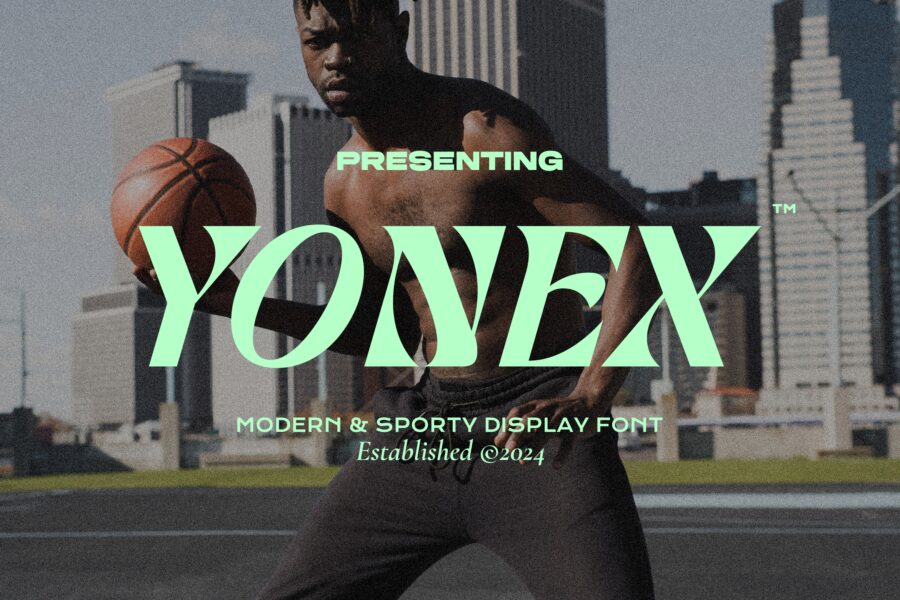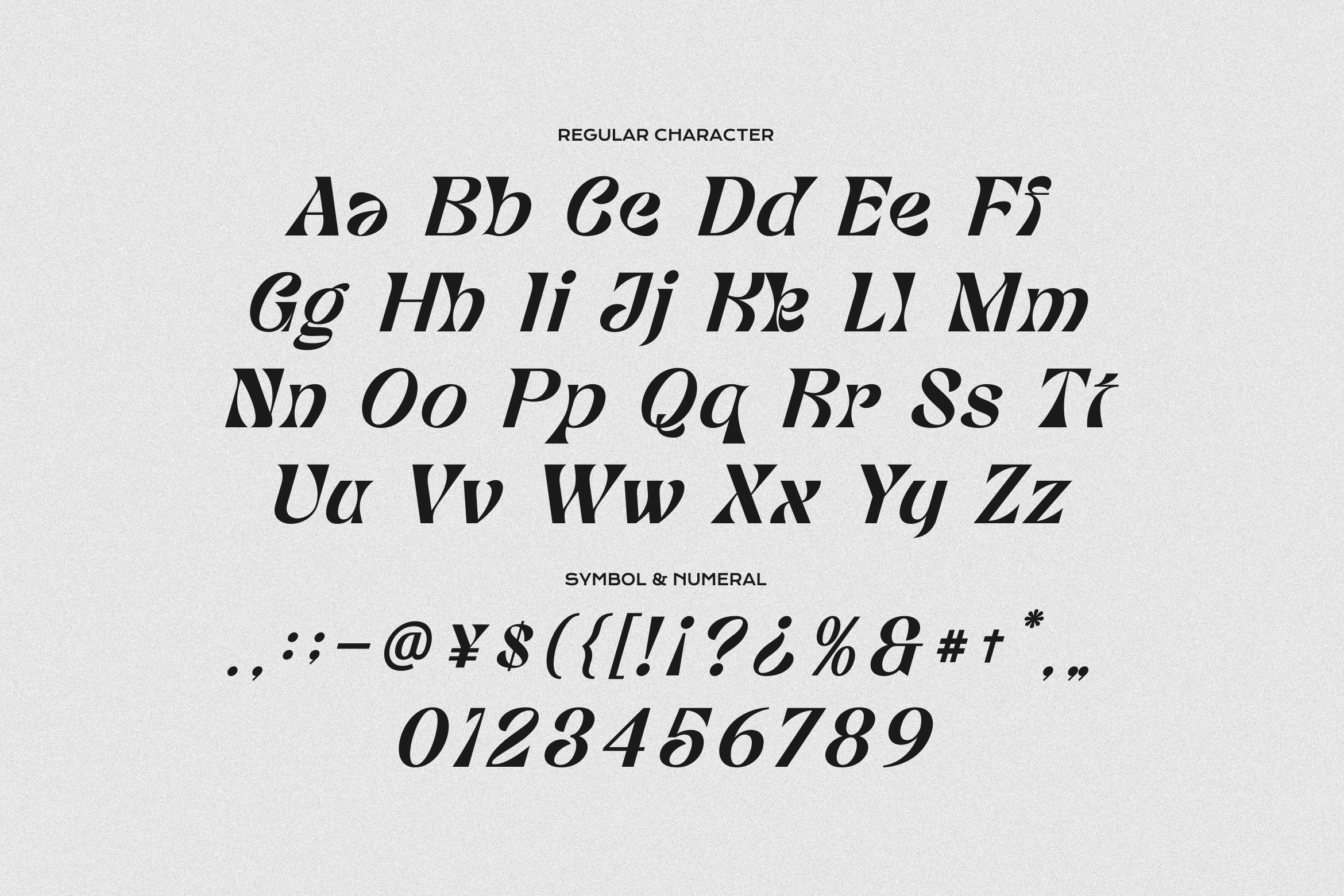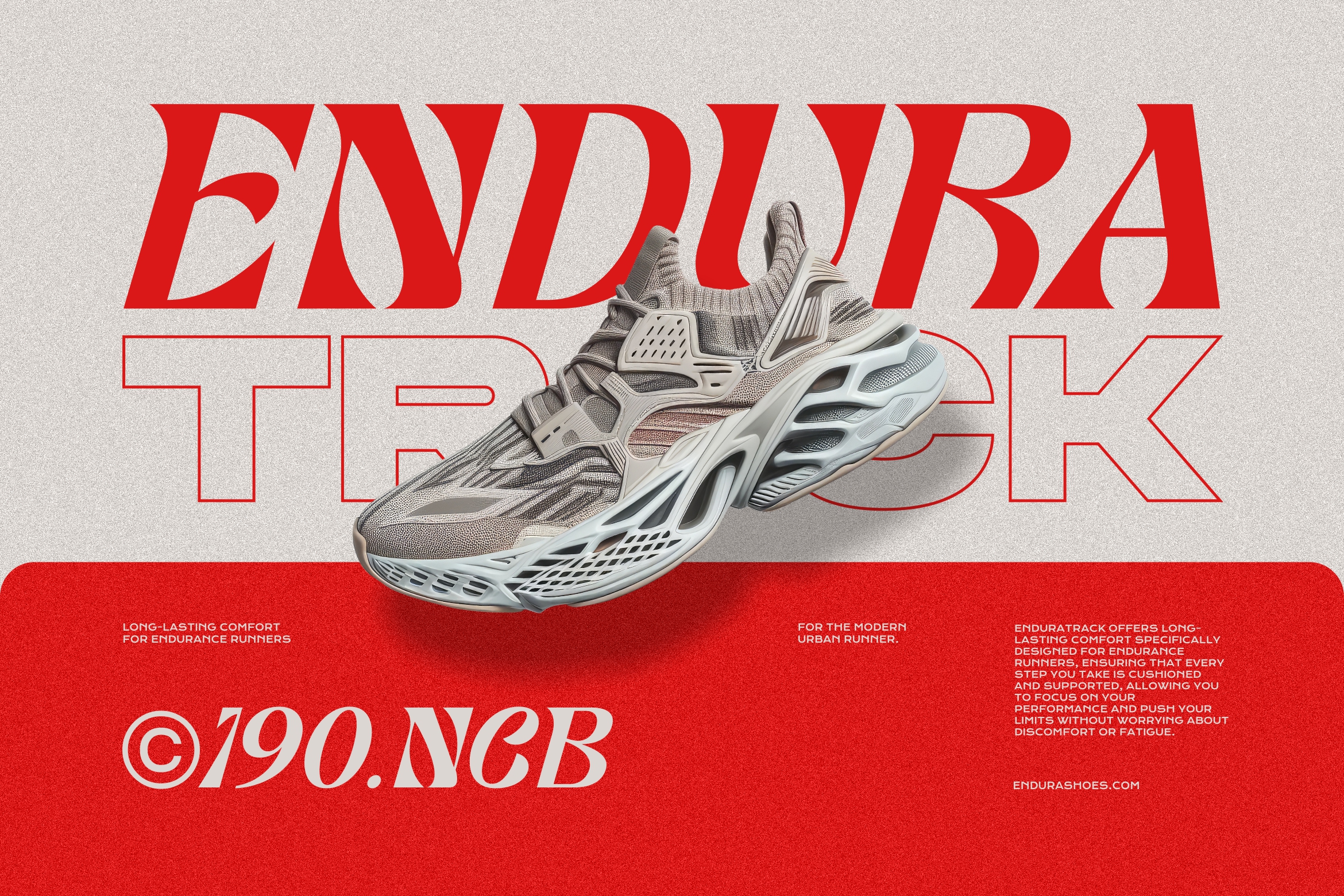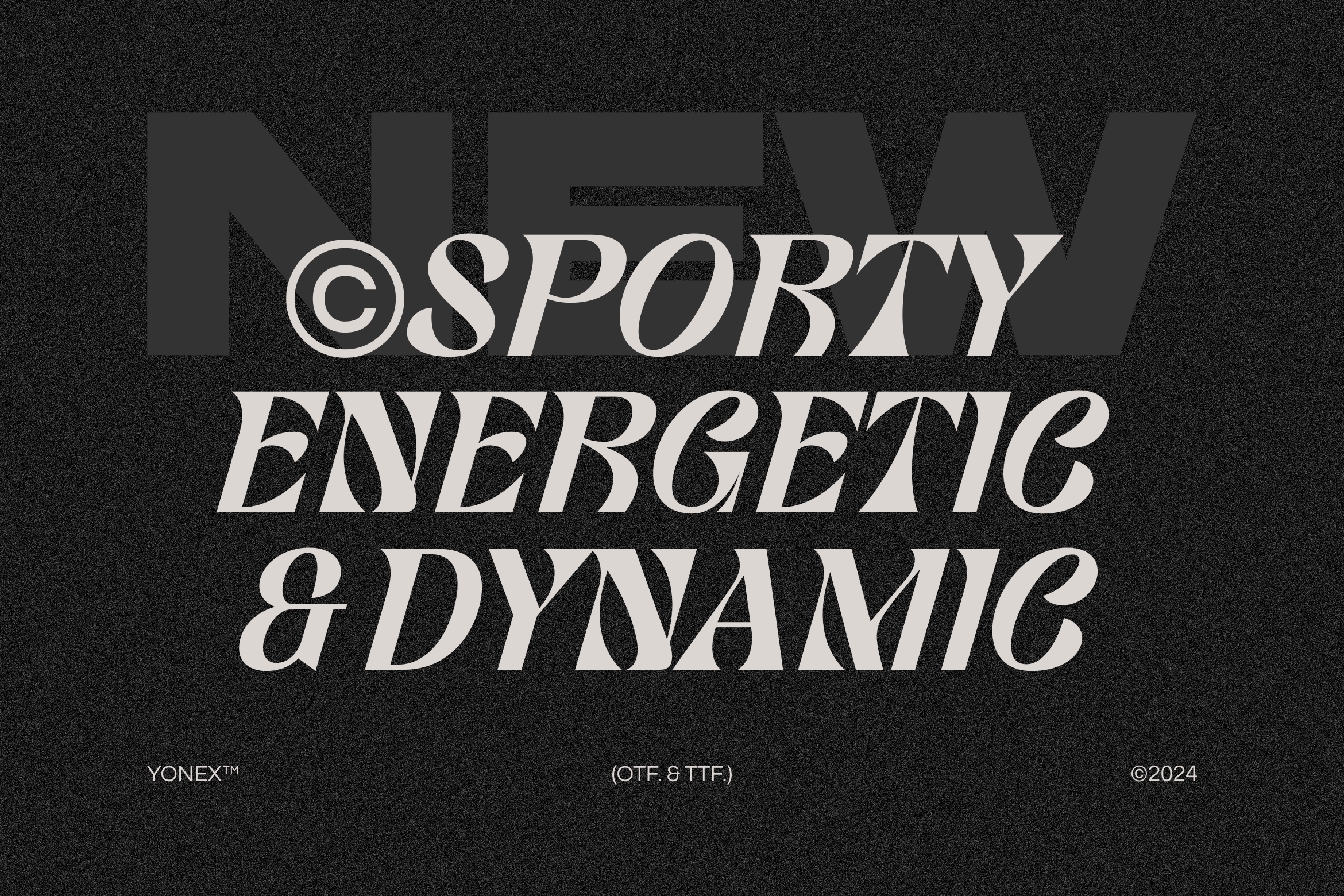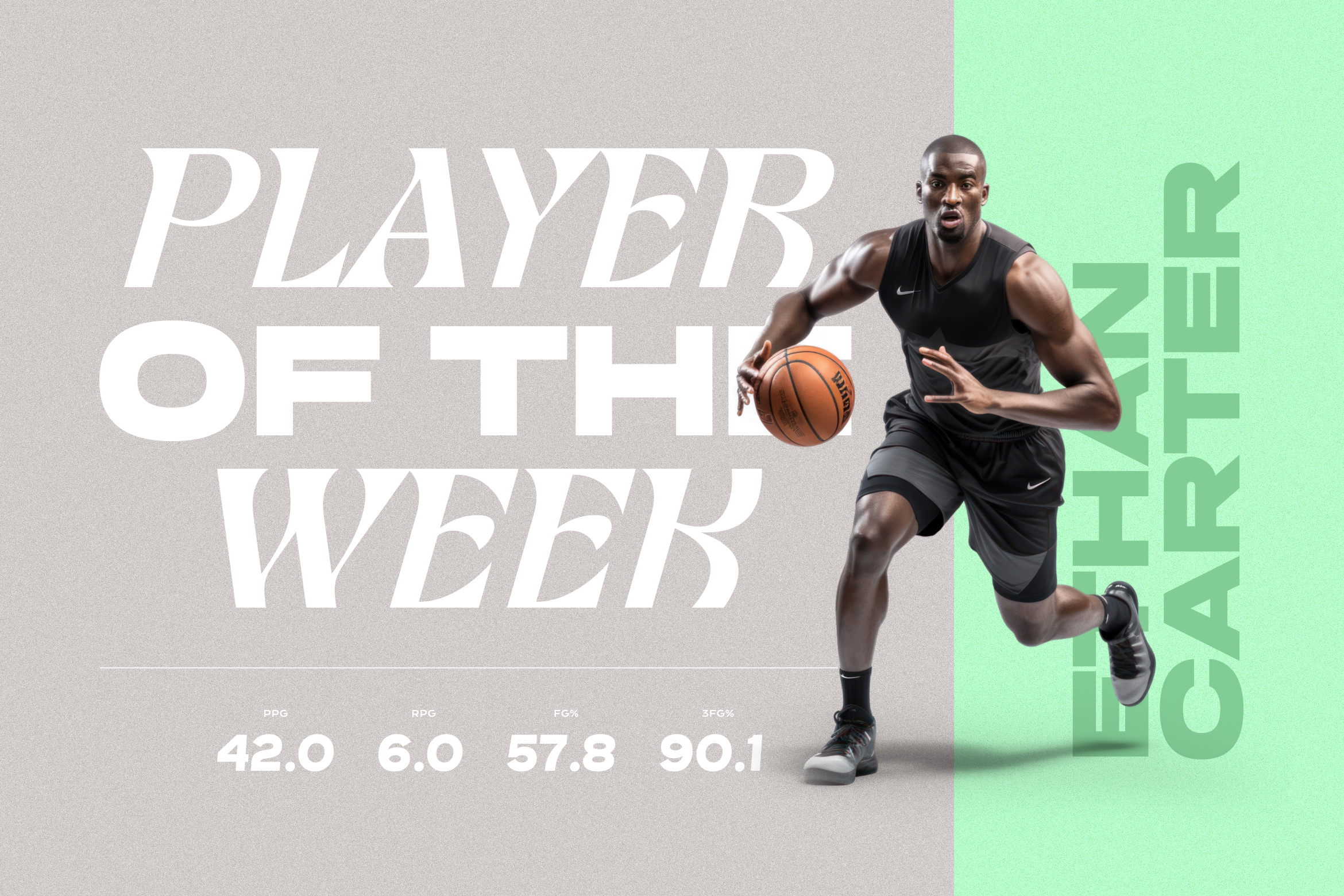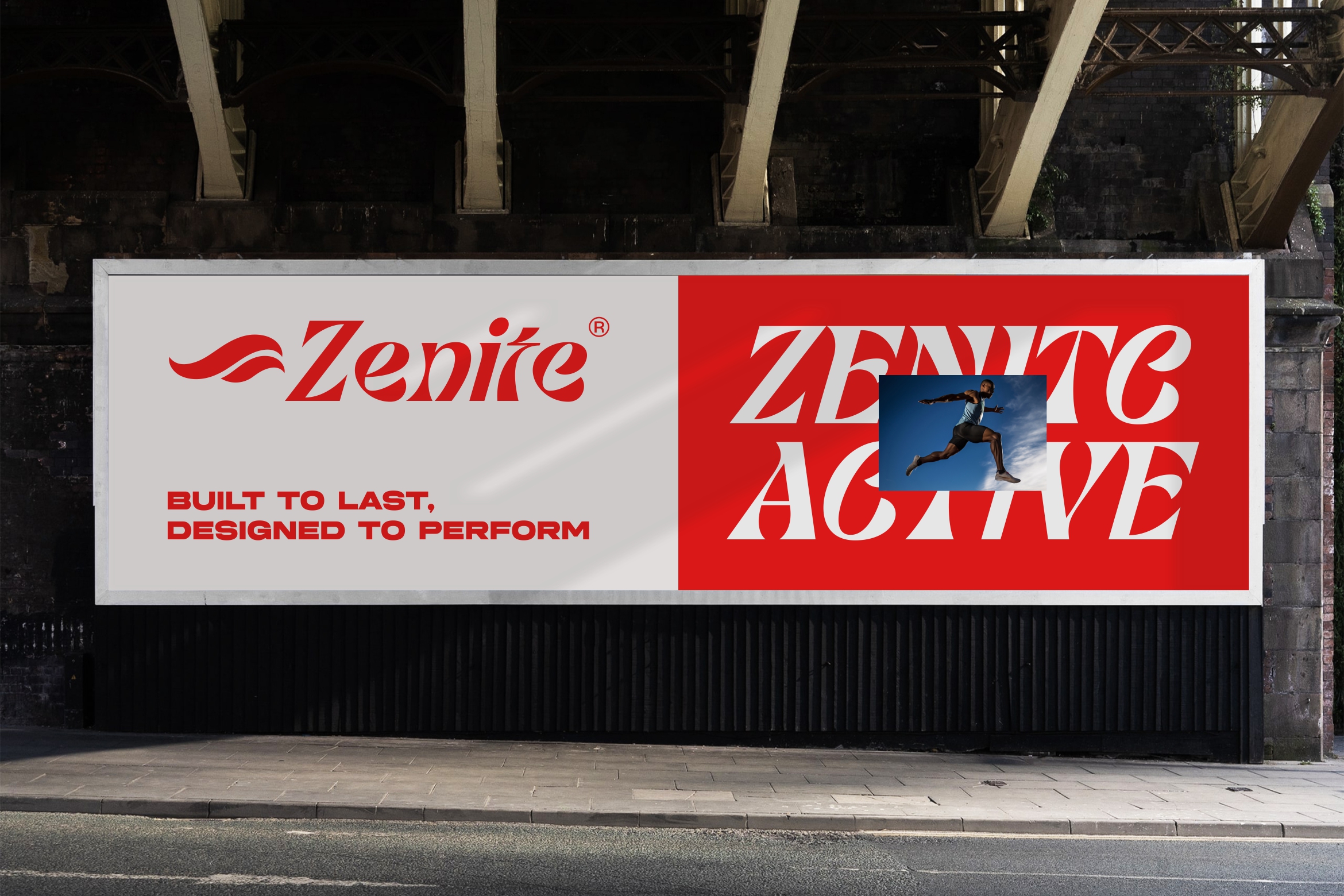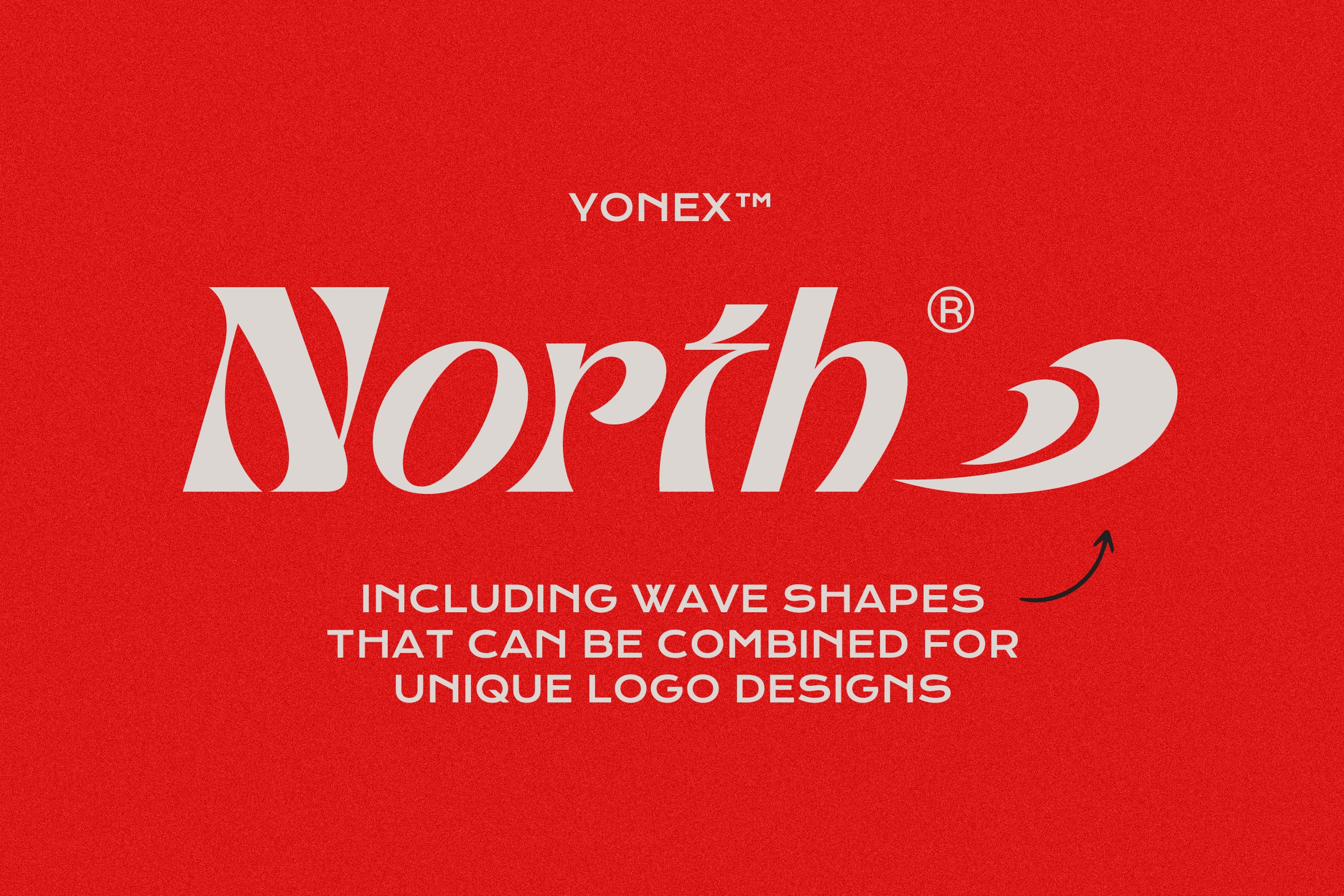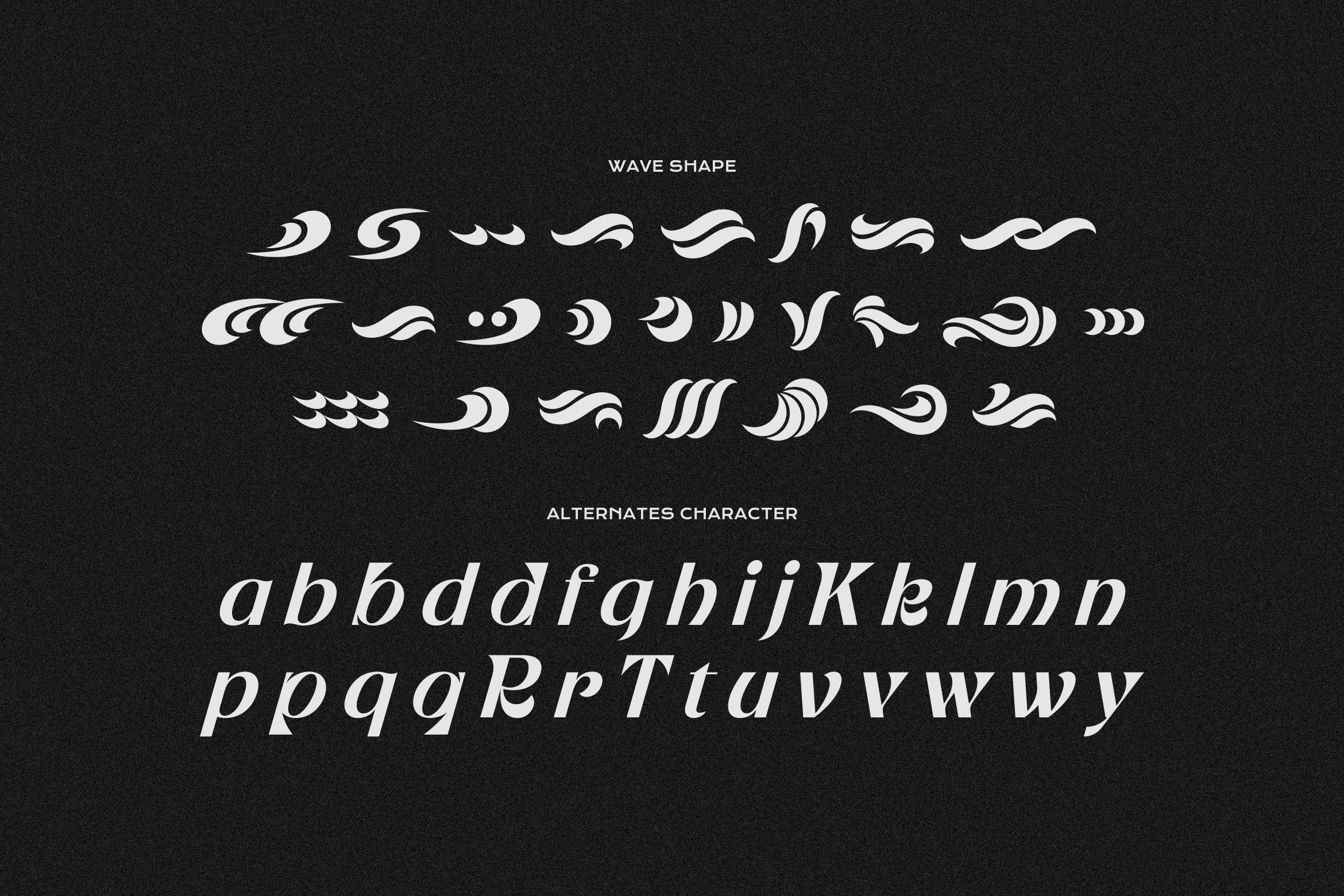
Yonex
Yonex is a bold and modern display font designed with sharp, energetic curves and a dynamic flow that radiates motion and strength. With its unique cut-in shapes and sporty italic stance, it gives a futuristic edge while maintaining high legibility — making it a perfect fit for athletic branding, urban fashion, streetwear promotions, and high-impact headlines.
Included in the font are alternate characters and wave-shaped glyphs, offering endless creative flexibility for logo compositions, visual identity, and expressive typography. Whether you’re designing for footwear campaigns, billboard ads, or active lifestyle posters, Yonex delivers style, confidence, and performance-driven aesthetics.
Yonex